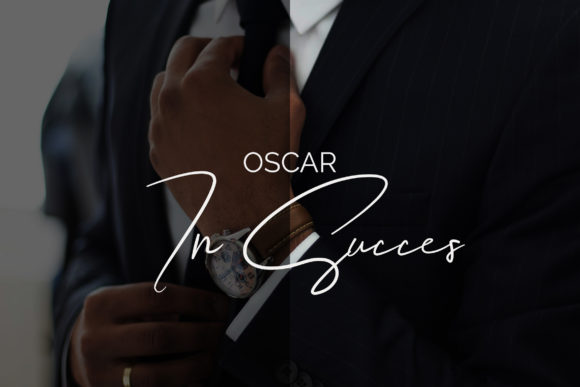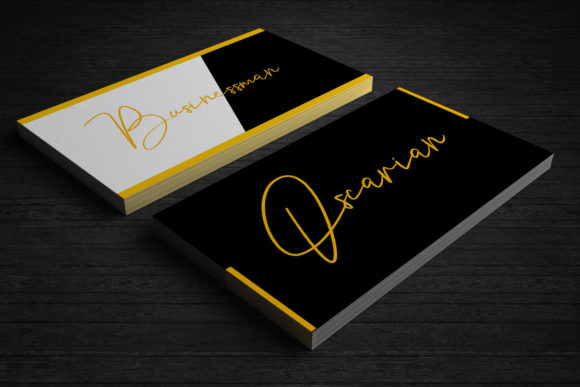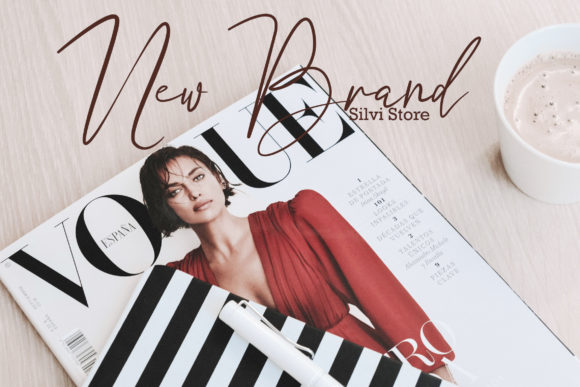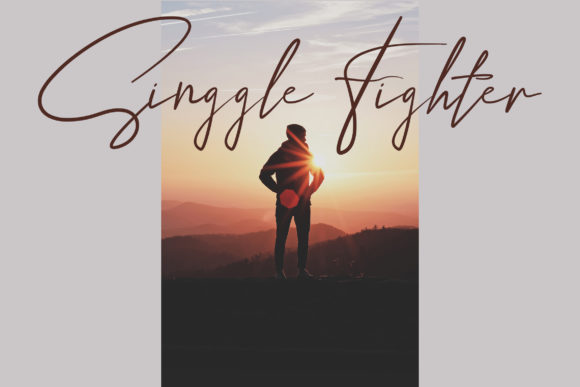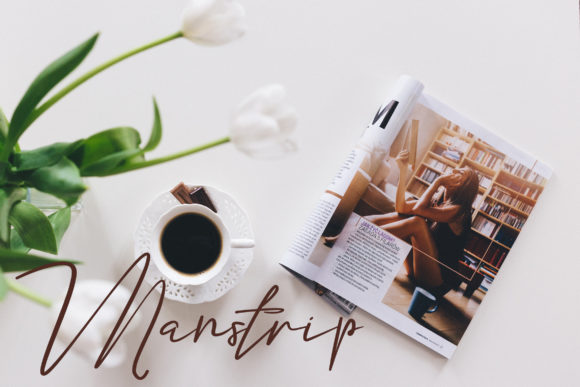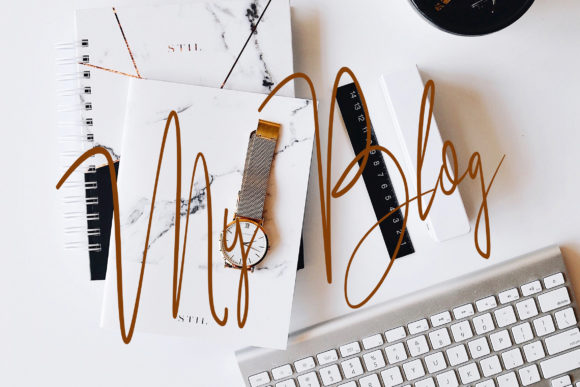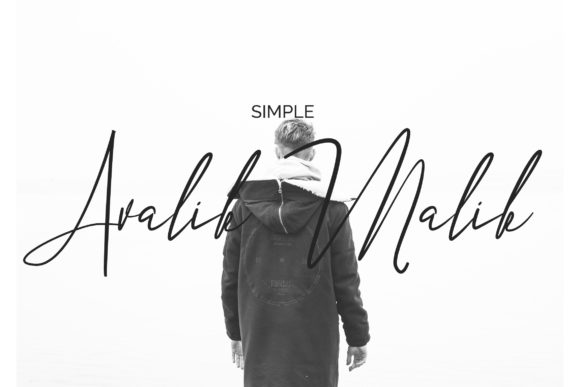
Sapda Tama Font
About Sapda Tama Font
Sapda Tama is an elegant and beautiful script font featuring beautiful curves. It will add a romantic touch to any crafting project!